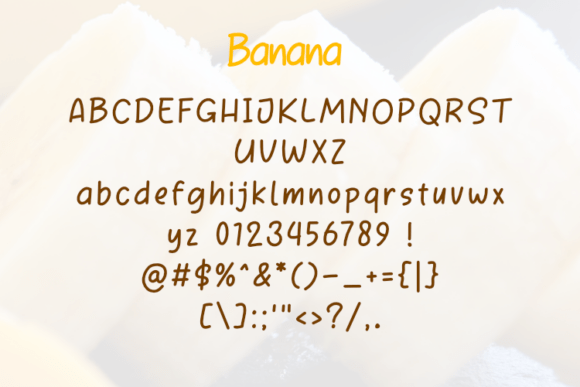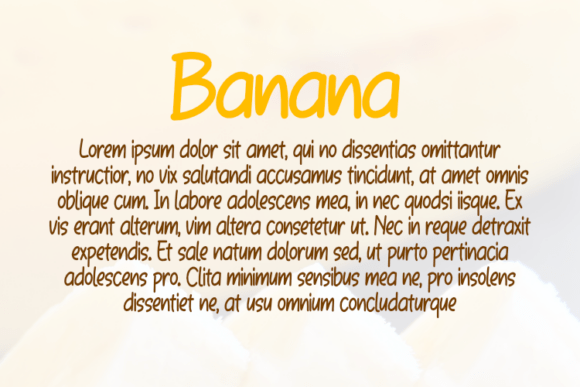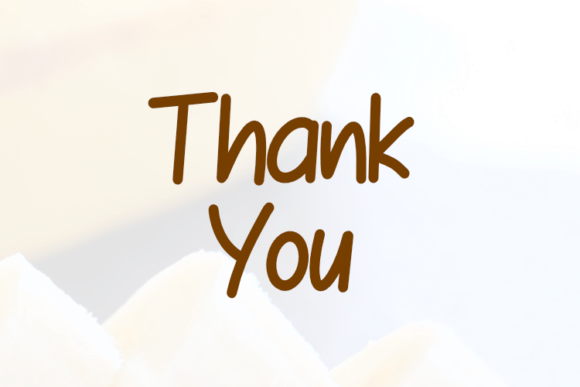
The Perfect Font for Your Next Big Design
Have you ever stared at a blank page, eager to unleash your creativity, only to be stumped by the perfect font to bring your vision to life? That’s a familiar feeling for many designers, but fear not, because help is here in the form of the Banana Font.
This vibrant font is designed specifically for fashion-oriented designs, adding a playful touch to your work that’s sure to make it stand out. Whether you’re working on a new product line or creating a statement piece of clothing, the Banana Font is the perfect companion to help you achieve your goals.
Banana Font Key Features
- Font Family: Banana Font is a custom-designed font family, making it unique and distinctive from other fonts.
- Font Size: Banana Font is available in a range of sizes, from 8pt to 72pt, making it suitable for various design applications, including body text, headings, and titles.
- Resolution: Banana Font is designed for high-resolution displays, ensuring crisp and clear text rendering at resolutions up to 300 DPI.
- Unique Characteristics: Banana Font features a distinctive, playful, and whimsical design, with rounded shapes and curved lines that evoke the feeling of a banana peel.
Design Review: Banana Font
I’ve had the chance to work with the Banana Font, and I must say it’s a unique addition to any design project. Here’s my honest review:
- ✨ Playful and fun vibe: The Banana Font is perfect for creating a lighthearted and approachable atmosphere in your design.
- ✨ Good for titles and headings: The font’s bold and expressive qualities make it ideal for highlighting important information or creating attention-grabbing titles.
- ✨ Easy to read: Despite its quirky appearance, the Banana Font is surprisingly legible, making it a great choice for body text.
- ⚠️ Limited versatility: The Banana Font is best suited for casual, playful projects. It may not be the best choice for formal or professional designs.
- ⚠️ Potential readability issues: While the font is generally easy to read, it may cause problems for certain audiences, such as those with visual impairments.
The Banana Font is a fun and engaging addition to any design project. While it may have some limitations, its playful vibe and versatility make it a great choice for a wide range of applications. With careful consideration of its strengths and weaknesses, the Banana Font can be a valuable asset in your design toolkit.
Tips for Getting the Most Out of Banana Font
To get the most out of Banana Font, consider the following tips:
- Use Banana Font in combination with other fonts to create a visually appealing design.
- Adjust the font color and background color to create contrast and make the text stand out.
Banana Font is commonly used in:
- Choose a bright and cheerful color scheme to match the playful tone.
- Select images of tropical fruits and flowers to add visual interest.
- Use the Banana Font for headings and subheadings to create a consistent look.
- Use bold, cursive fonts for headings to emphasize the whimsical theme.
- Add colorful illustrations of monkeys or parrots to create a fun atmosphere.
- Use a simple grid layout to organize the menu items and keep the design clean and easy to read.
Q: Are there any font customization options available for the Banana Font?
Yes, the Banana Font can be customized using font editing software, such as FontForge or FontLab. However, this requires technical expertise and can be a complex process. Alternatively, you can also use font manipulation software, such as Font Squirrel or Fontifier, to make adjustments to the font’s appearance and behavior.